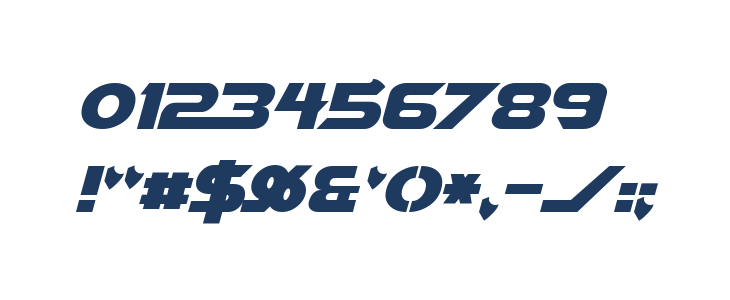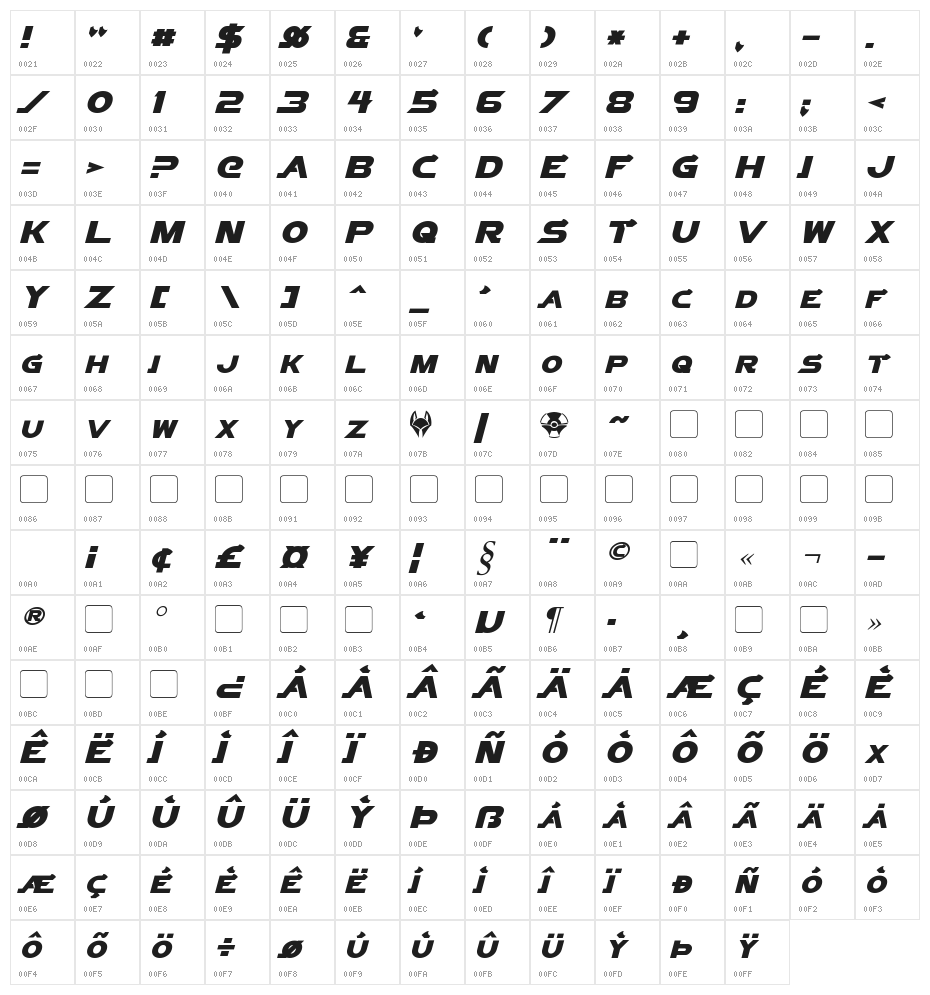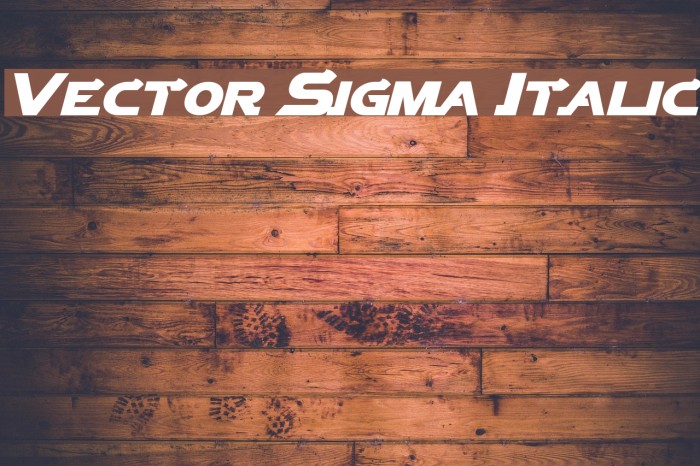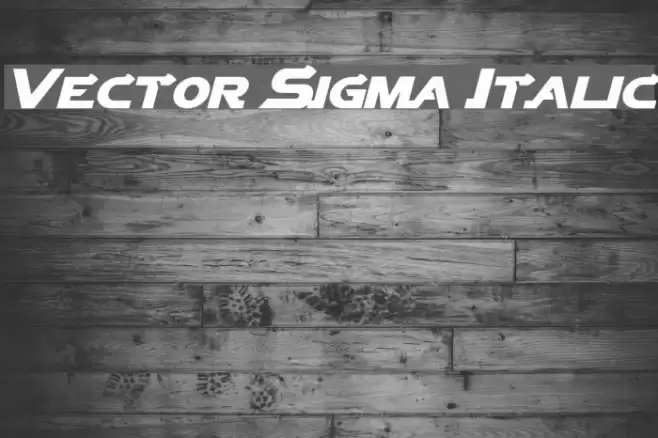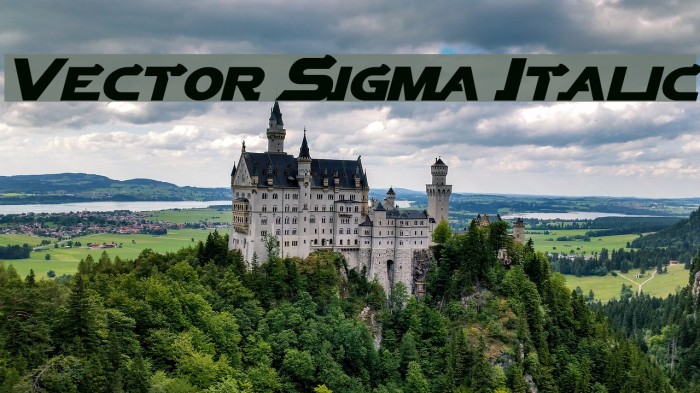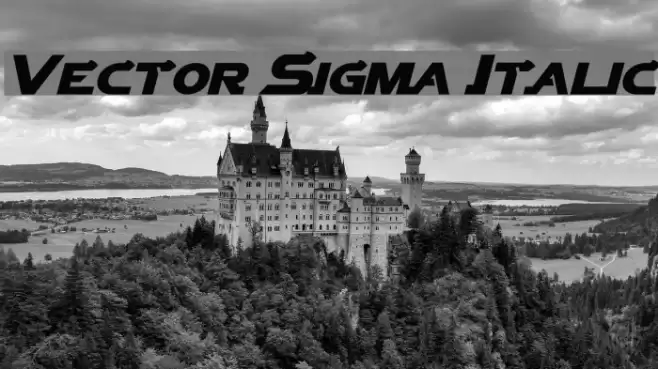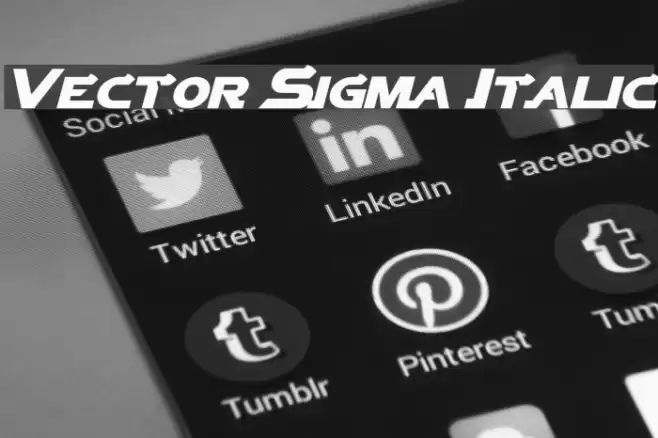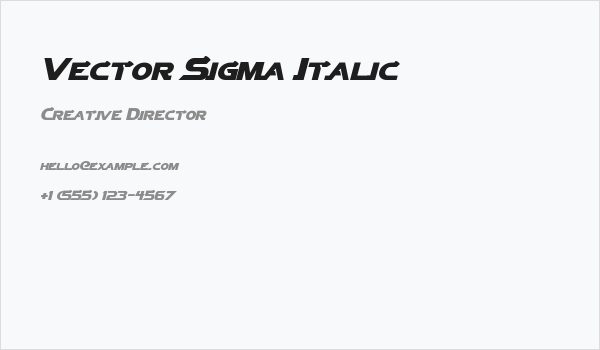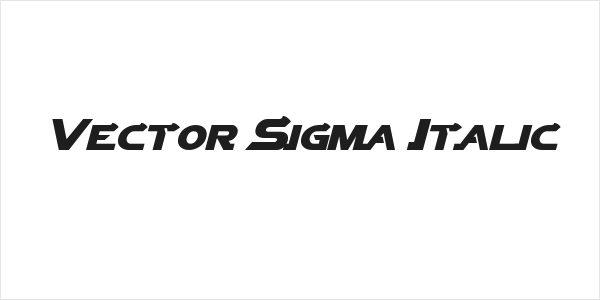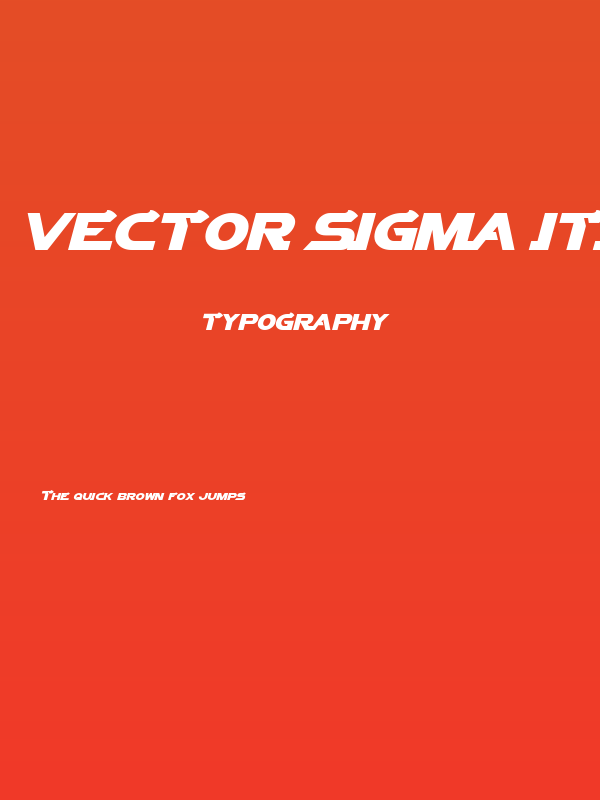
Vector Sigma Italic Font
Vector Sigma Italic Description
This font exhibits a bold and dynamic style with a strong italic slant, giving it a sense of motion and energy. The characters are wide and robust, featuring sharp angles and a futuristic aesthetic. The uppercase letters are particularly striking, with consistent thickness and a geometric design that enhances readability. The numbers and special characters maintain the same boldness and angularity, ensuring uniformity across all glyphs. This font's design is ideal for making a strong visual impact.